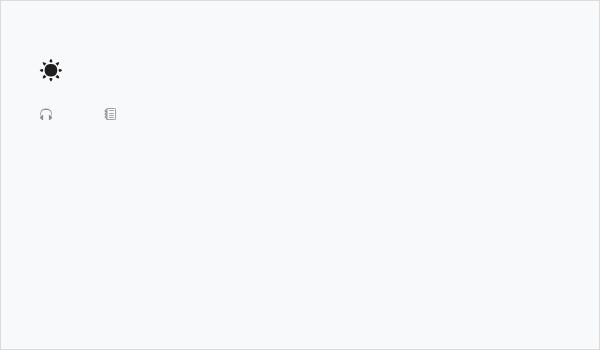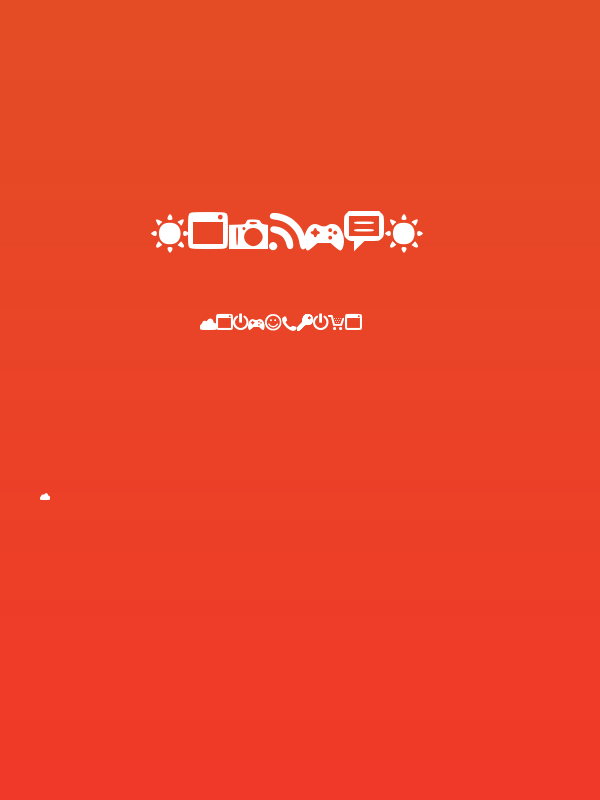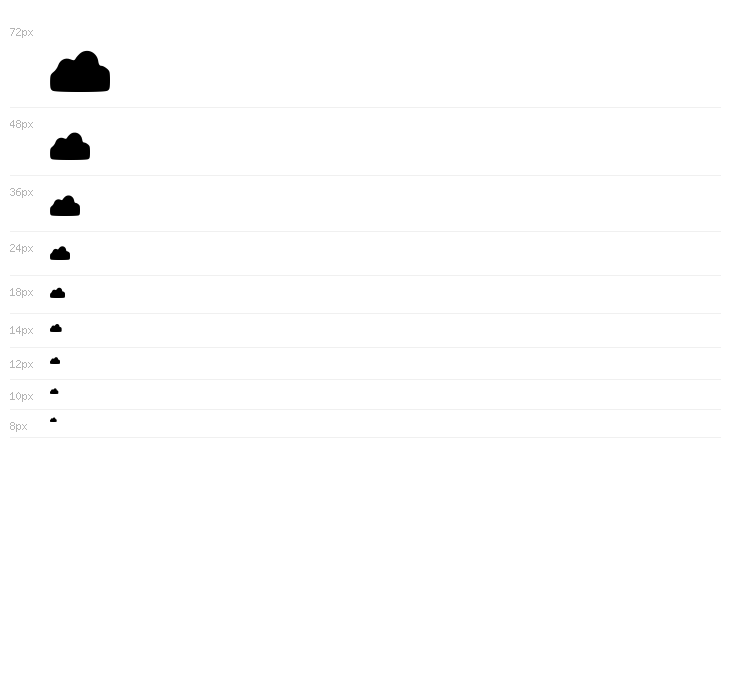
Symbols1 Font
Symbols1 Description
A collection of bold, solid black pictogram-style icons representing various objects and actions such as search, RSS, documents, media, communication, weather, and devices. The icons are simple, geometric, and easily recognizable.
| Overall Style | Modern, Minimalist |
| Use Case | Icons, UI elements, infographics |
| Proposed Projects | User interfaces, infographics, mobile apps, web design, signage. |